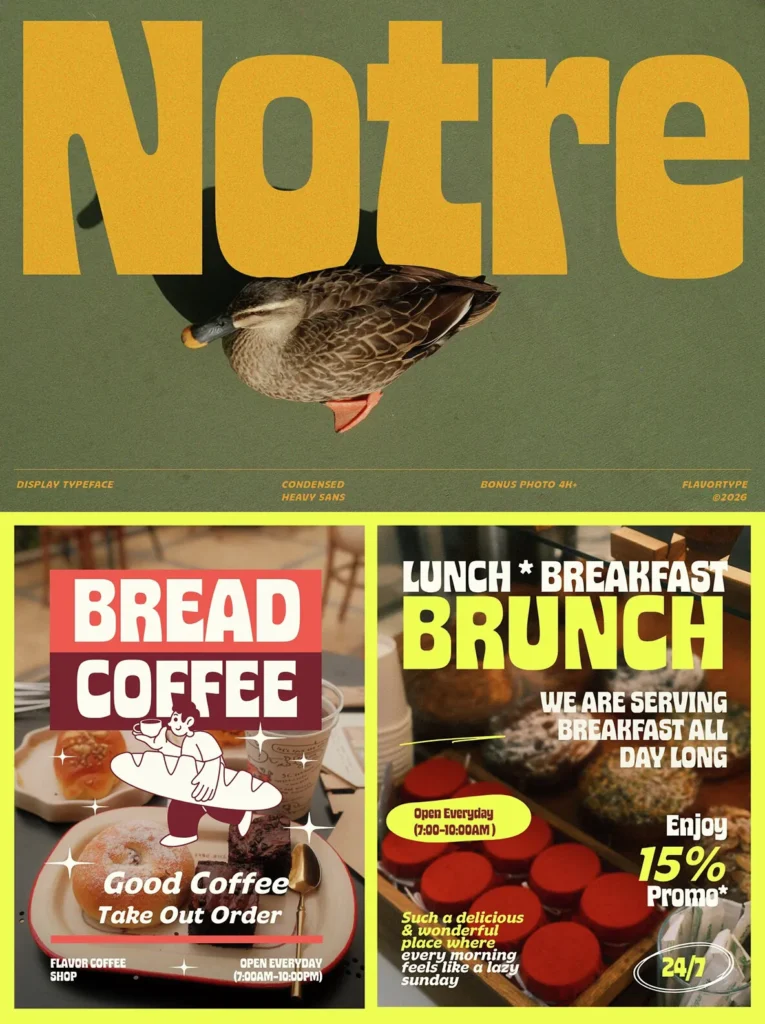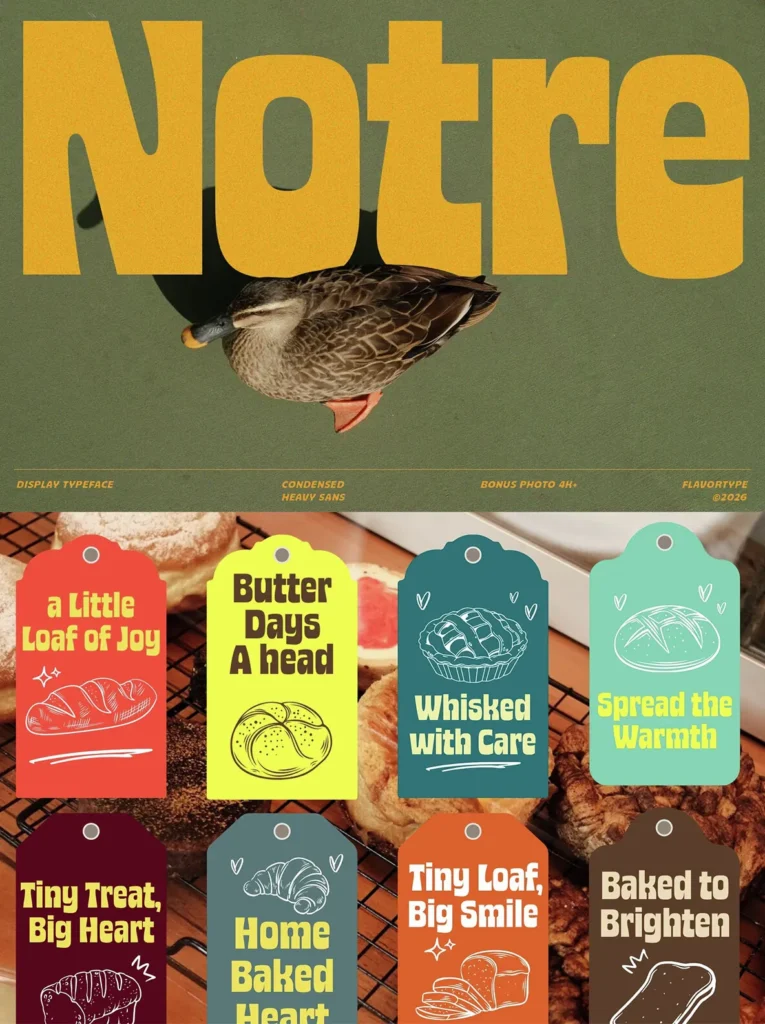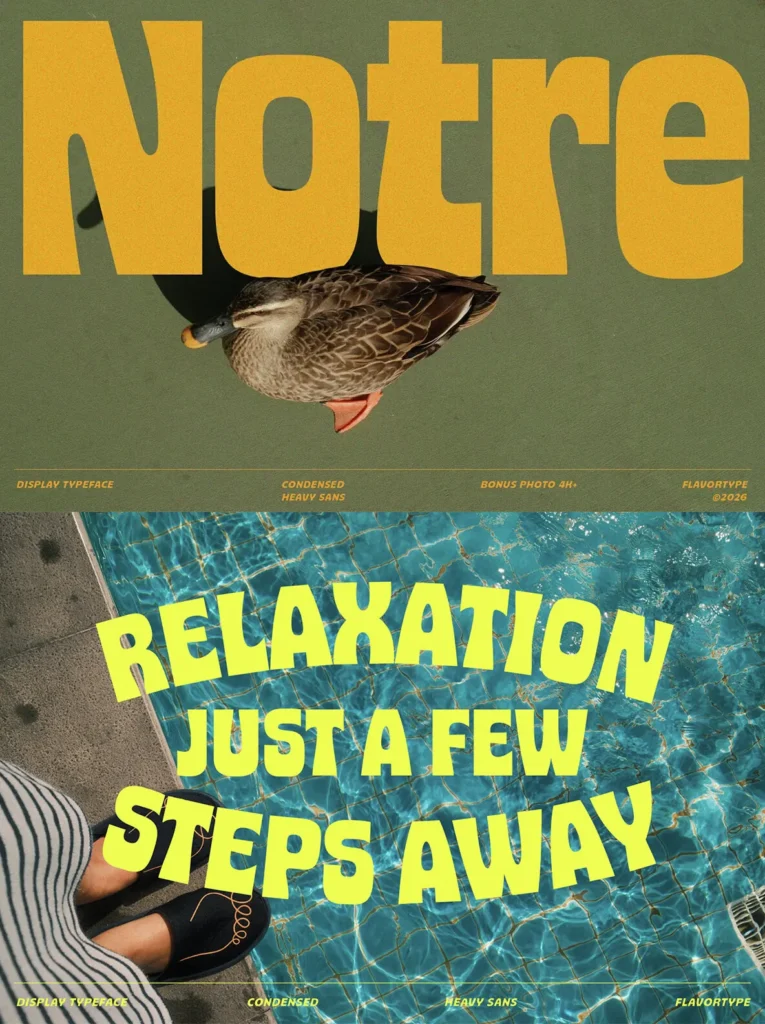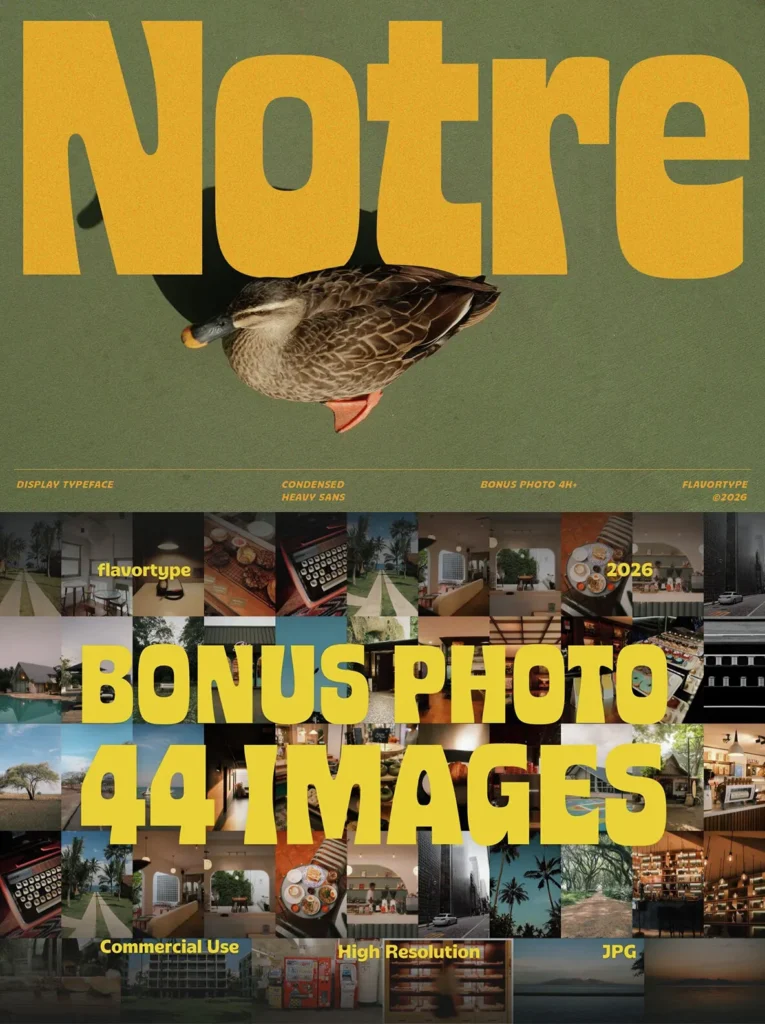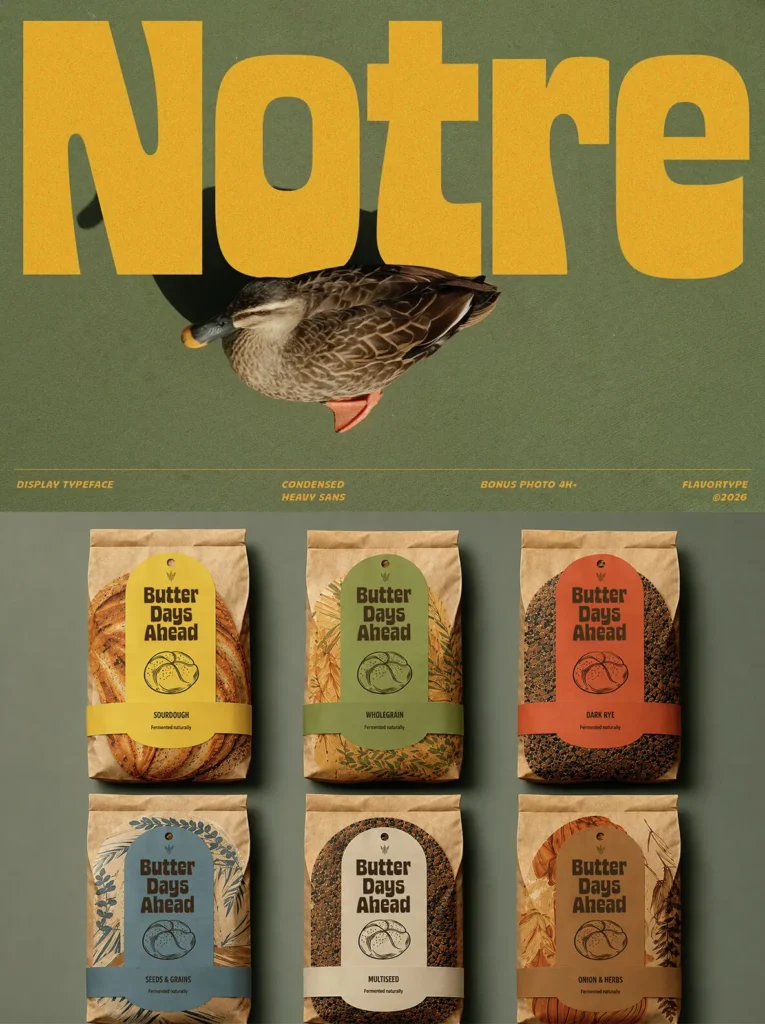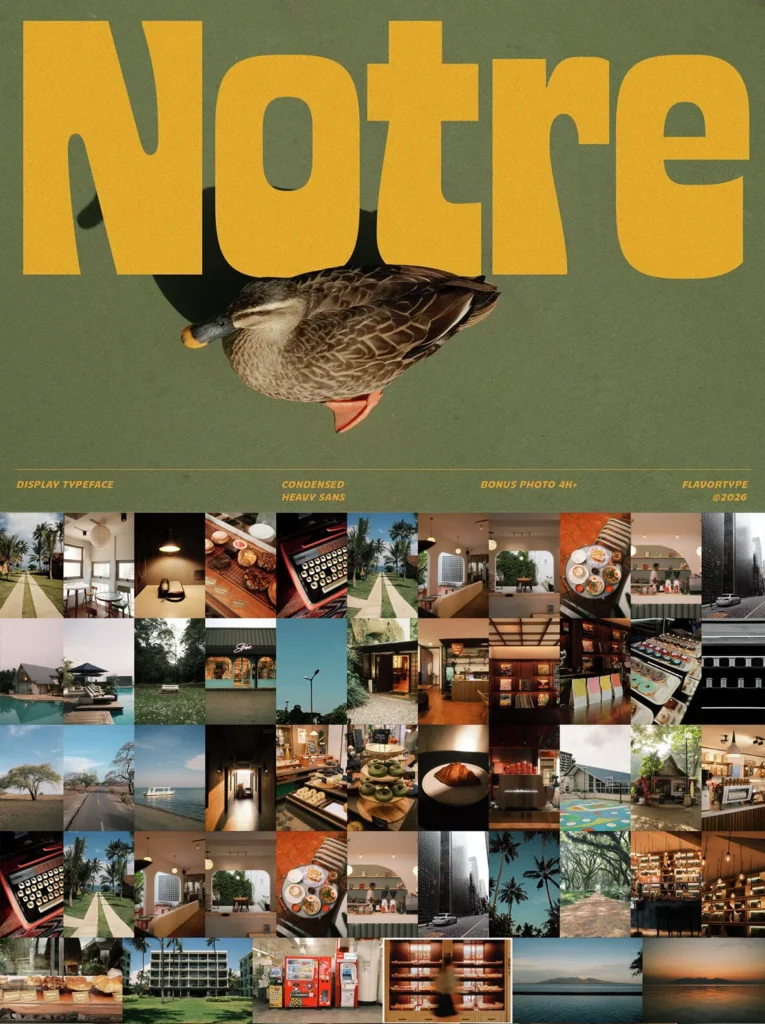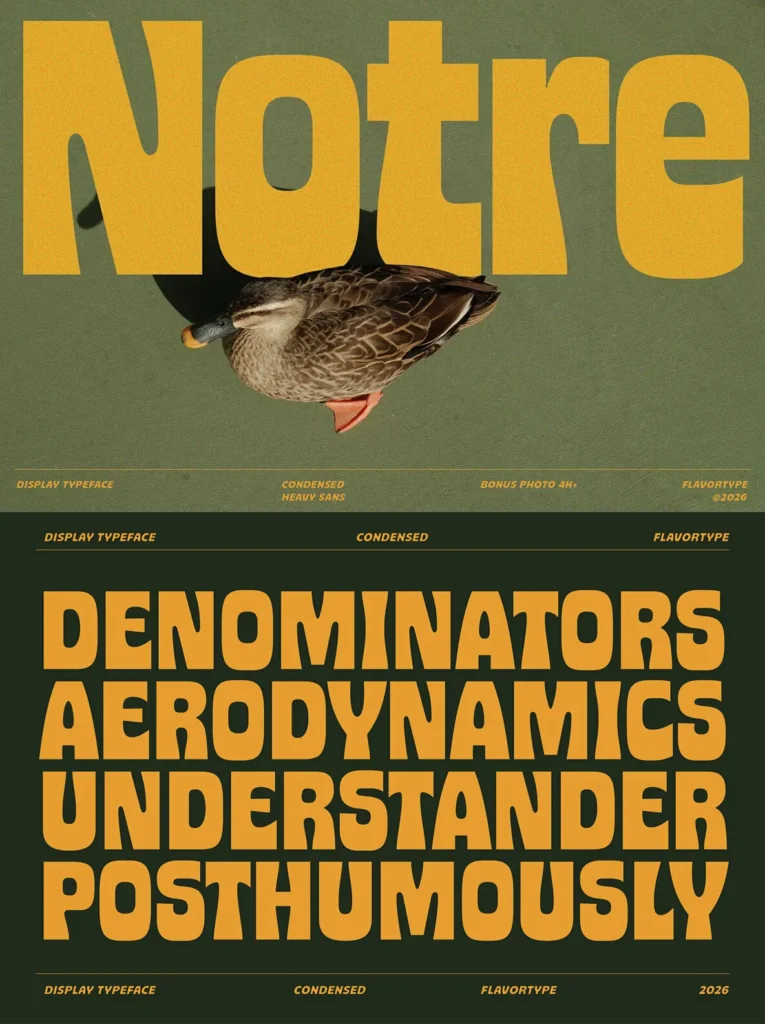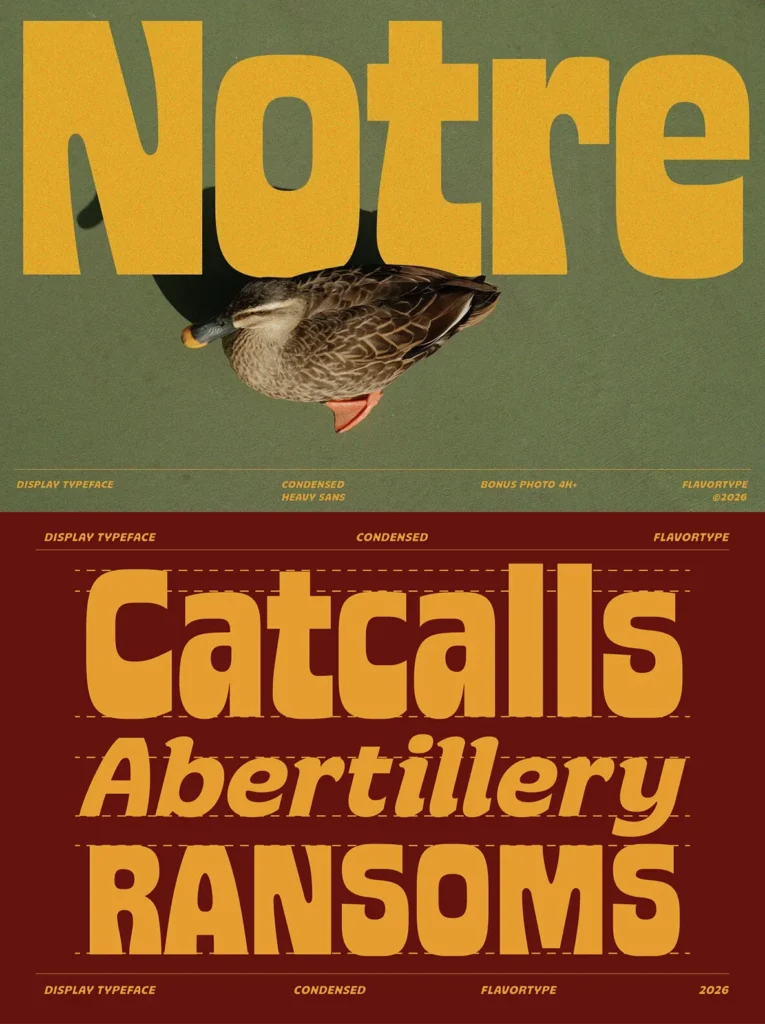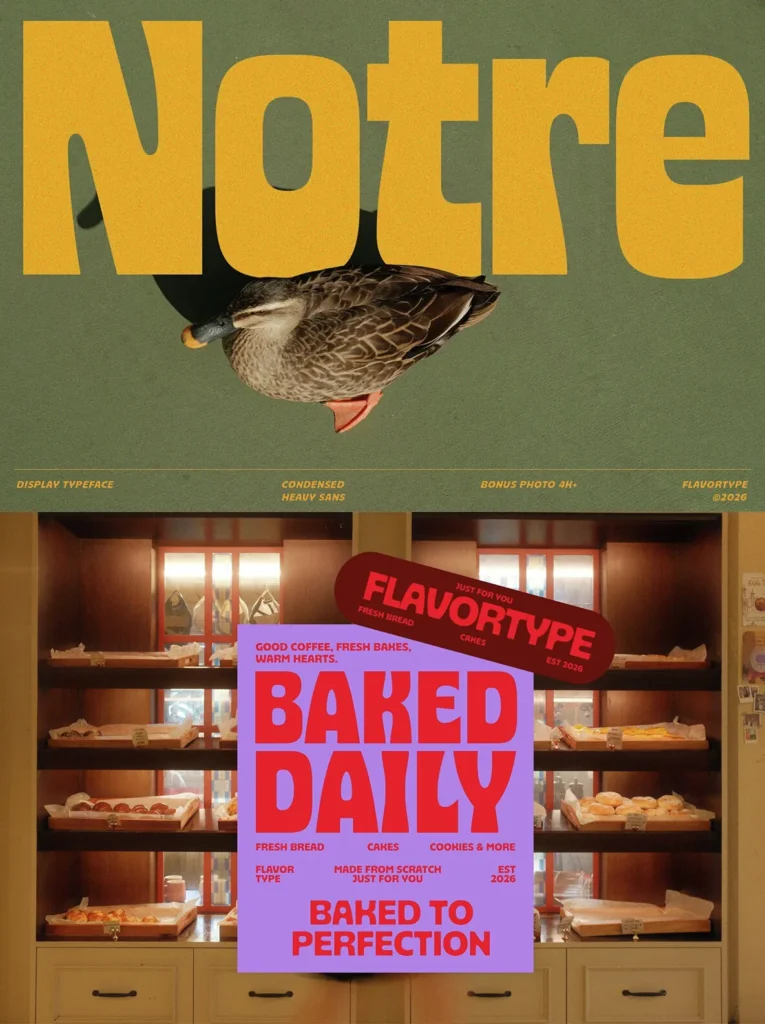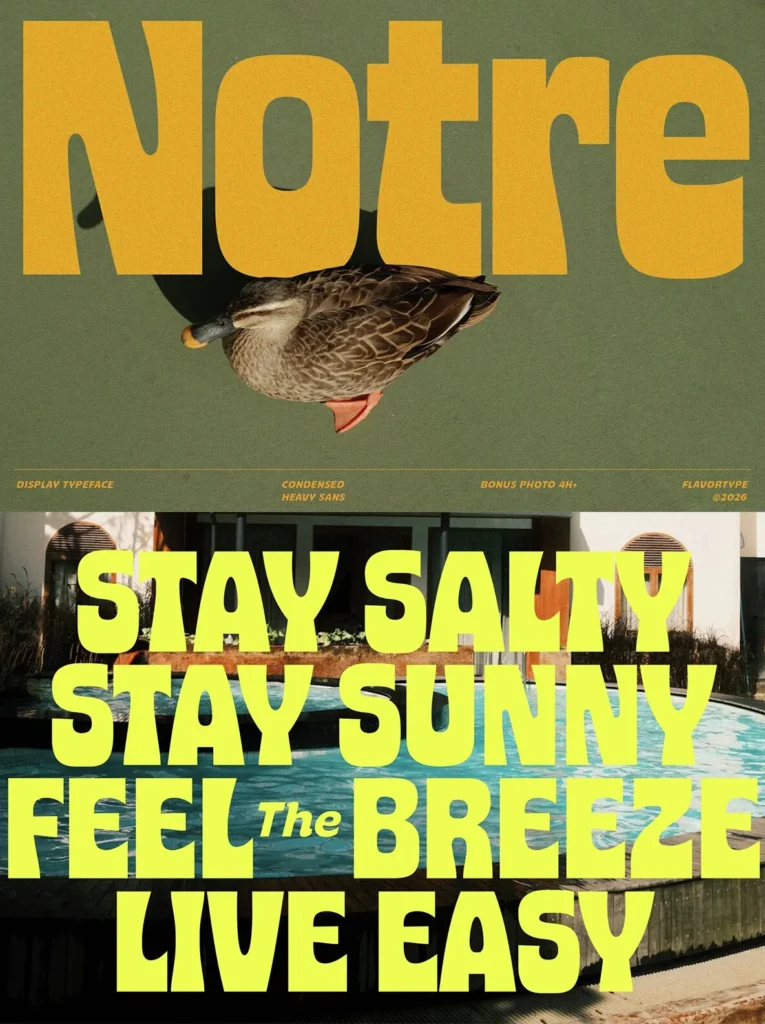
Notre — Bold Words, Warm Curves
Notre is a bold condensed display typeface built to make every word impossible to ignore. Rooted in vintage signage, classic advertising, and the energy of modern branding, Notre brings together strong vertical forms, tight spacing, and playful curves. The result is a voice that feels both nostalgic and fresh.
Designed for headlines, posters, packaging, café branding, social media graphics, menus, and editorial layouts, Notre works wherever visual impact matters. Its compact proportions allow large amounts of text to fit comfortably while keeping a striking presence. Rounded corners and expressive details soften its bold structure, adding warmth, personality, and handcrafted charm.
Whether you’re creating a bakery brand, a retro-inspired poster, a lifestyle campaign, or eye-catching merchandise, Notre delivers a confident, friendly character that turns simple messages into memorable statements.